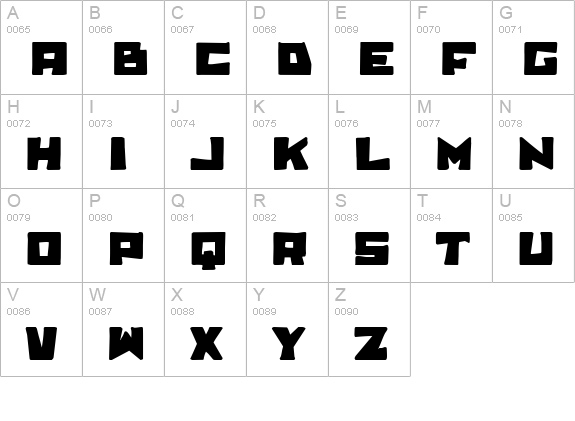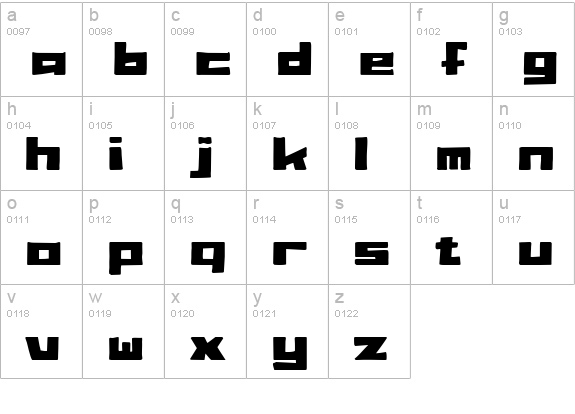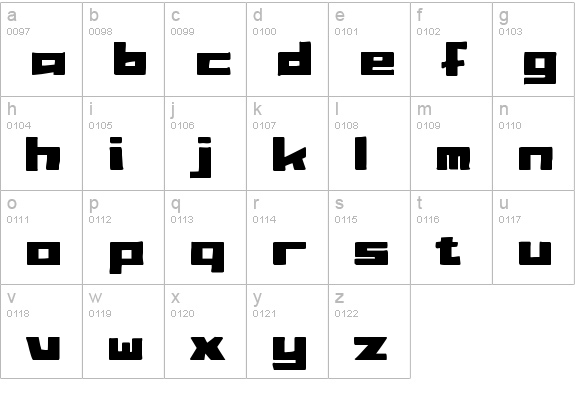
BillieBob font is a whimsical and playful typeface that exudes a sense of creativity and fun. With its quirky and unique design, this font is perfect for adding a touch of personality to any project. Whether you're working on a poster, logo, or invitation, BillieBob font is sure to make your text stand out. What's even better is that BillieBob font is completely free to download at FontsMarket.com! This means you can easily access this charming font and use it in your designs without any cost. So go ahead and give your projects a touch of whimsy with BillieBob font today!